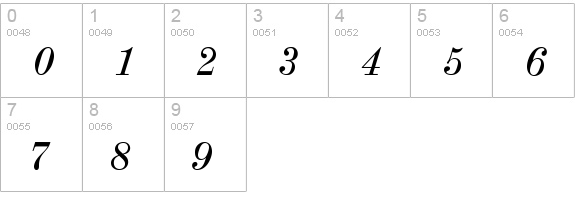
Madison Italic is a distinctive, italic variant in the Madison typeface family \xE2\x80\x94 well suited to design and typography projects.
Madison Italic font is a stunning typeface that exudes elegance and sophistication. Its sleek and slanted letterforms add a touch of modernity to any design project. With its graceful curves and fluid lines, Madison Italic font is perfect for creating stylish logos, branding materials, invitations, and more. This versatile font offers a unique blend of professionalism and creativity, making it suitable for a wide range of applications. Whether you're working on a corporate presentation, a fashion magazine layout, or a wedding invitation, Madison Italic font will effortlessly elevate your design. One of the best things about Madison Italic font is that it is free! That's right, you can freely download this exquisite font at FontsMarket.com. This means that you can add a touch of sophistication to your projects without having to spend a fortune on expensive fonts. Madison Italic font is a true gem that is accessible to everyone. So why wait? Enhance your designs with the elegance and style of Madison Italic font. Download it for free at FontsMarket.com and unlock a world of possibilities for your creative endeavors.